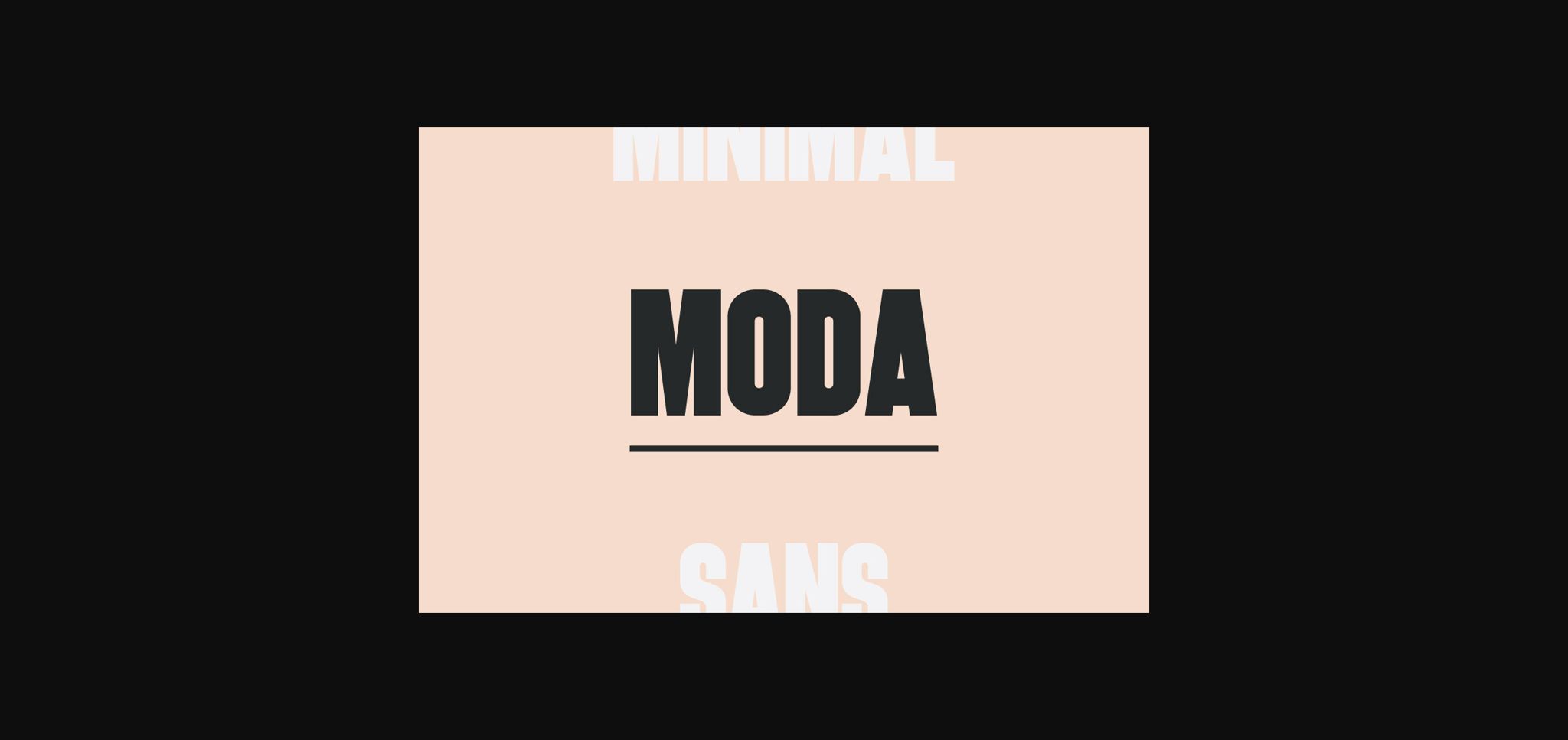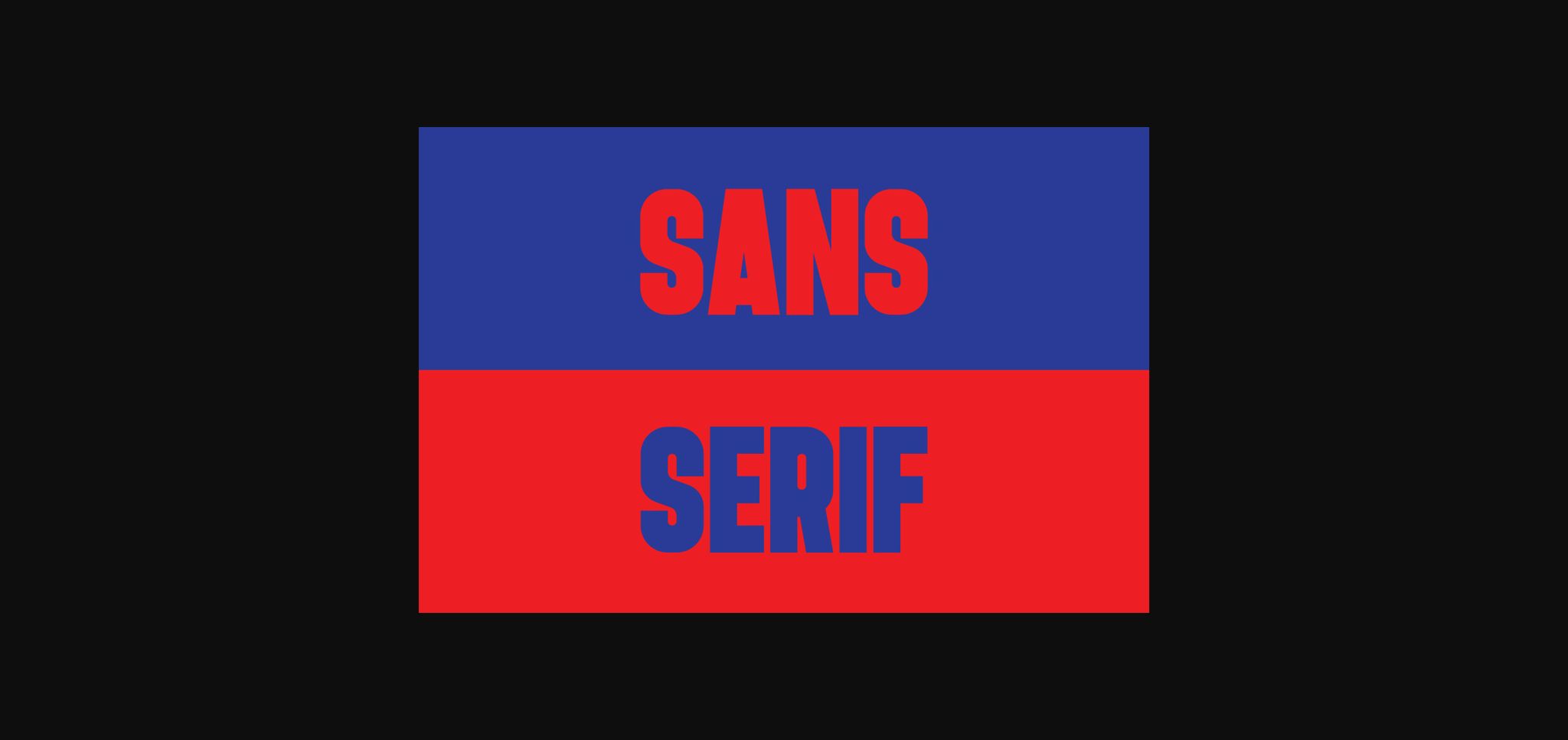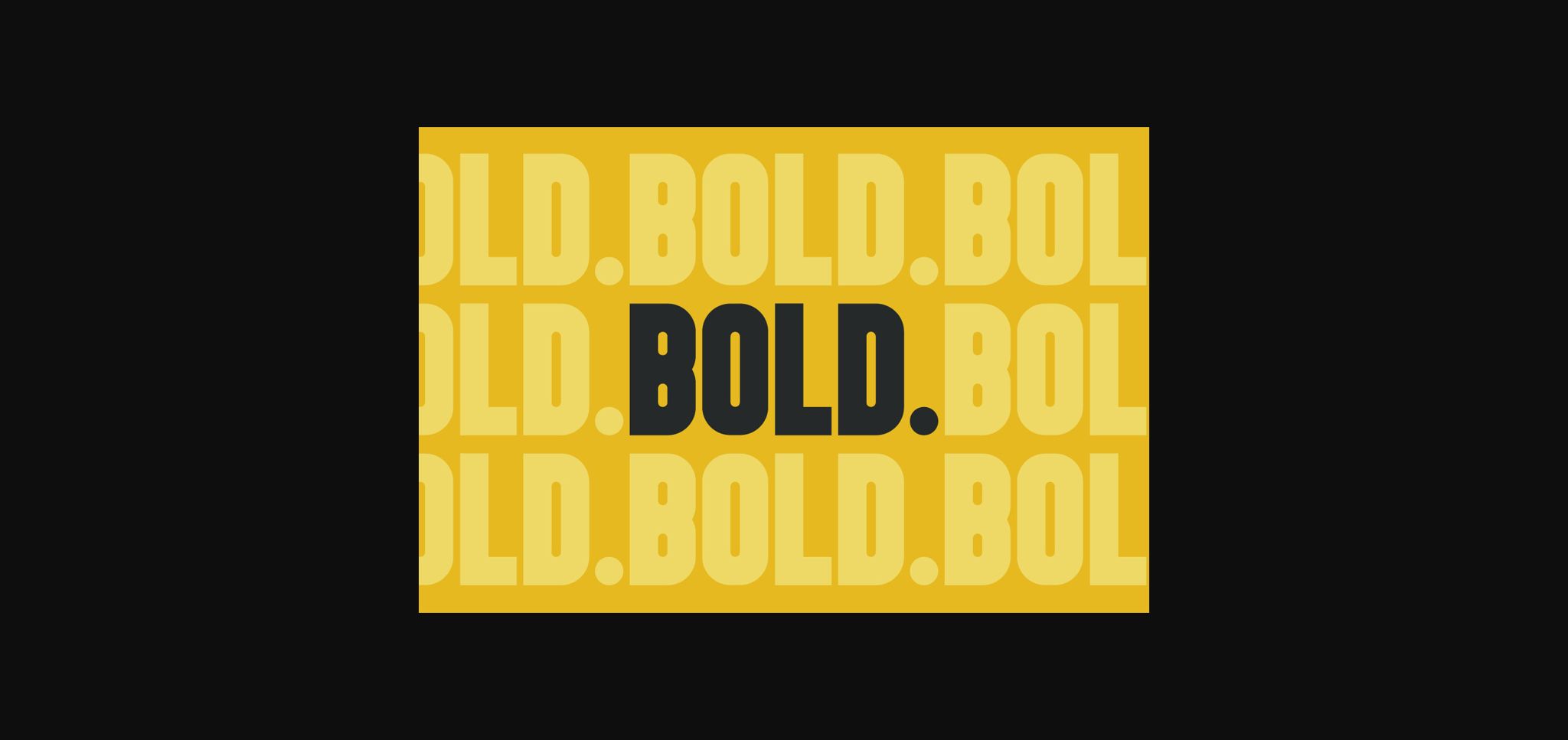
About Moda Font
Introducing Moda, a clean modern sans serif that’s on the heavier side. Use this bold chunky font for creating impactful titles and headlines. Great for website headers, posters, logos, advertising & promotions. Includes multilingual characters!